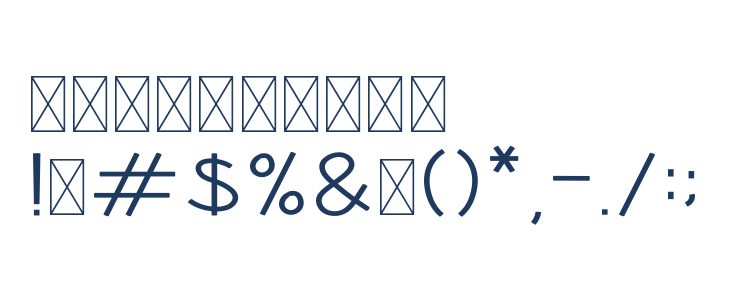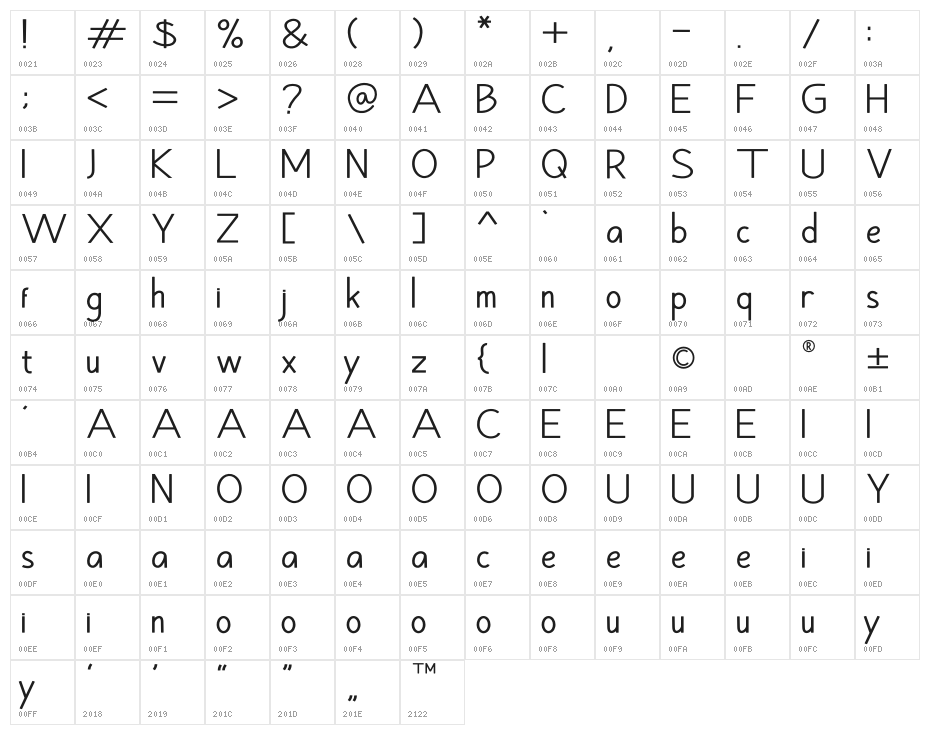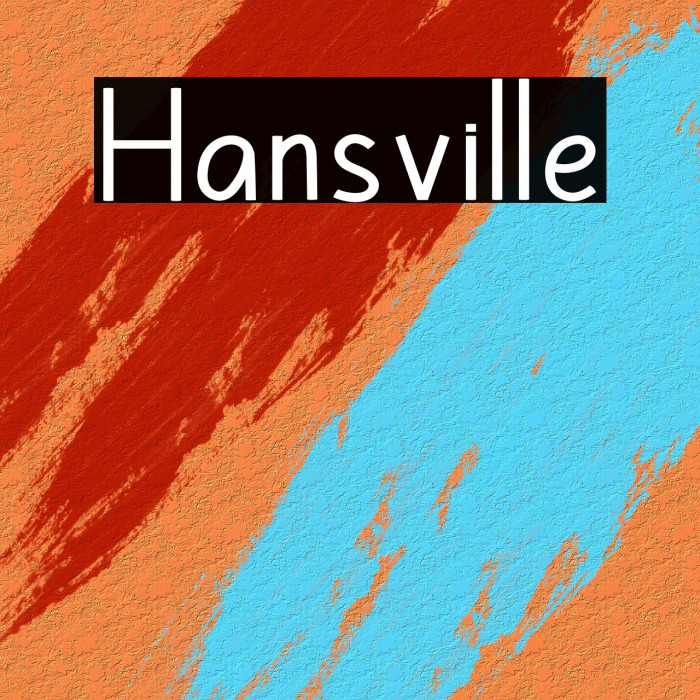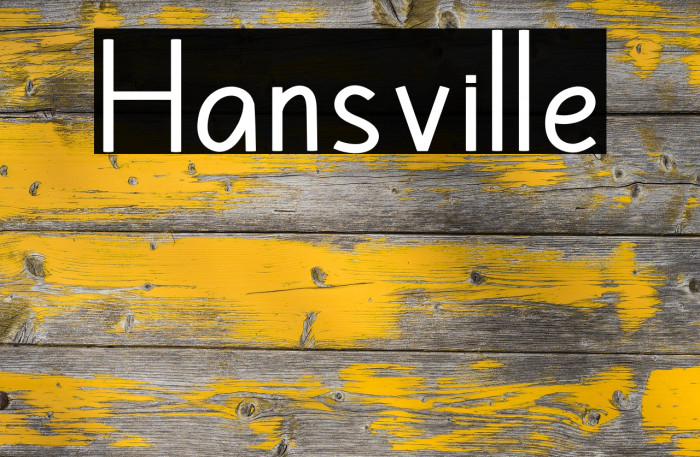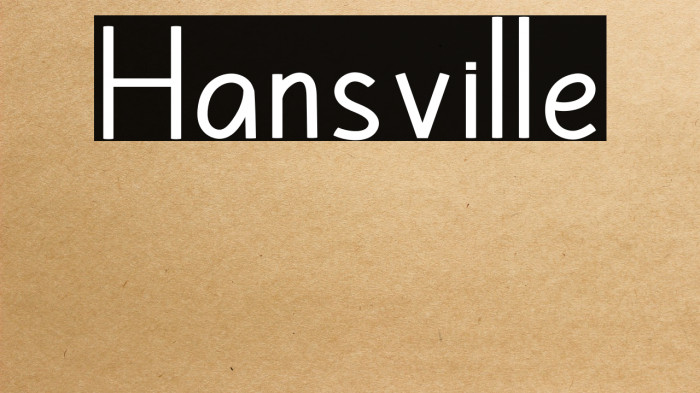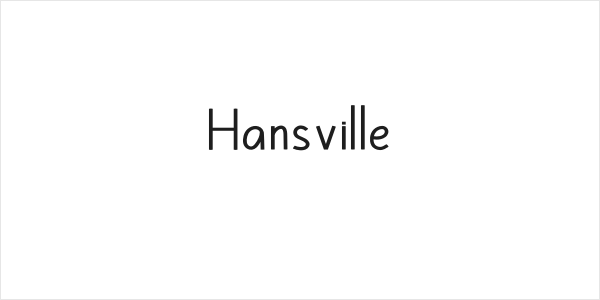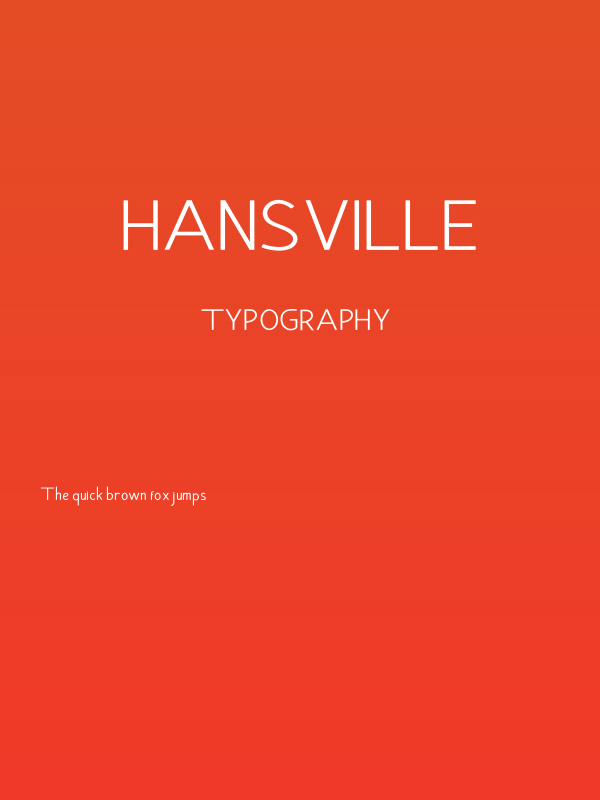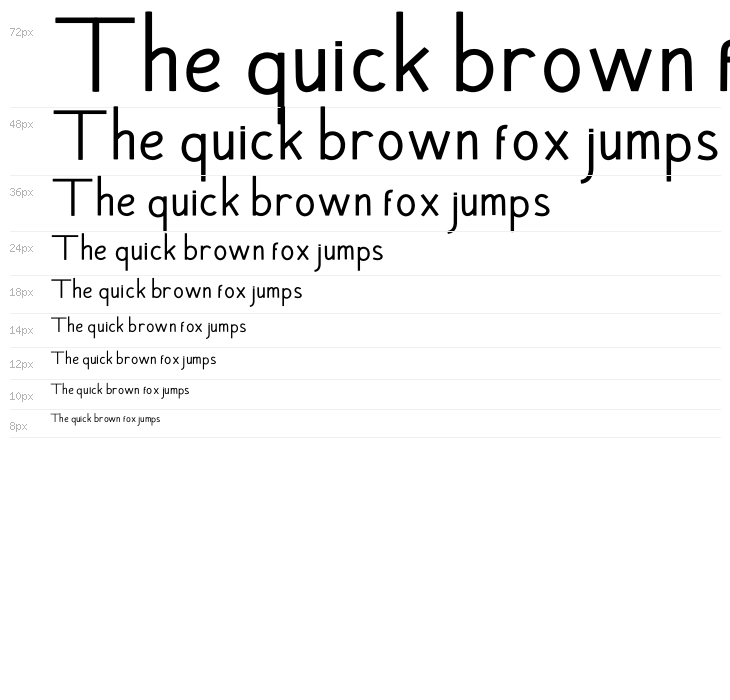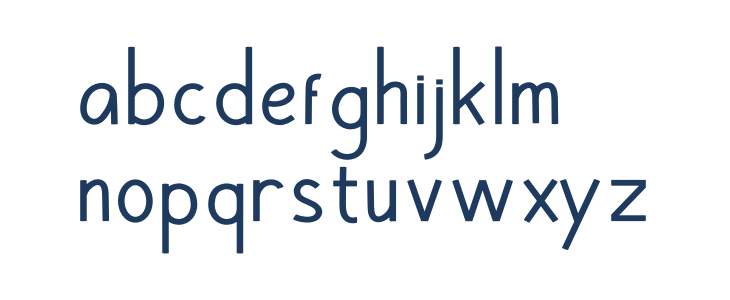
Hansville Font
Hansville Description
This font features a clean and modern sans-serif design with uniform stroke widths, contributing to a minimalist and contemporary appearance. The uppercase letters are tall and slightly condensed, offering a sleek and professional look. The lowercase letters maintain a consistent height, providing a balanced and harmonious feel. The numerals are clear and legible, making them suitable for various applications. Special characters are well-defined, enhancing the font's versatility. Overall, this font is ideal for projects that require a modern and straightforward aesthetic.
Proposed ProjectsIdeal for branding, web design, advertising, and editorial projects that require a modern and clean aesthetic.